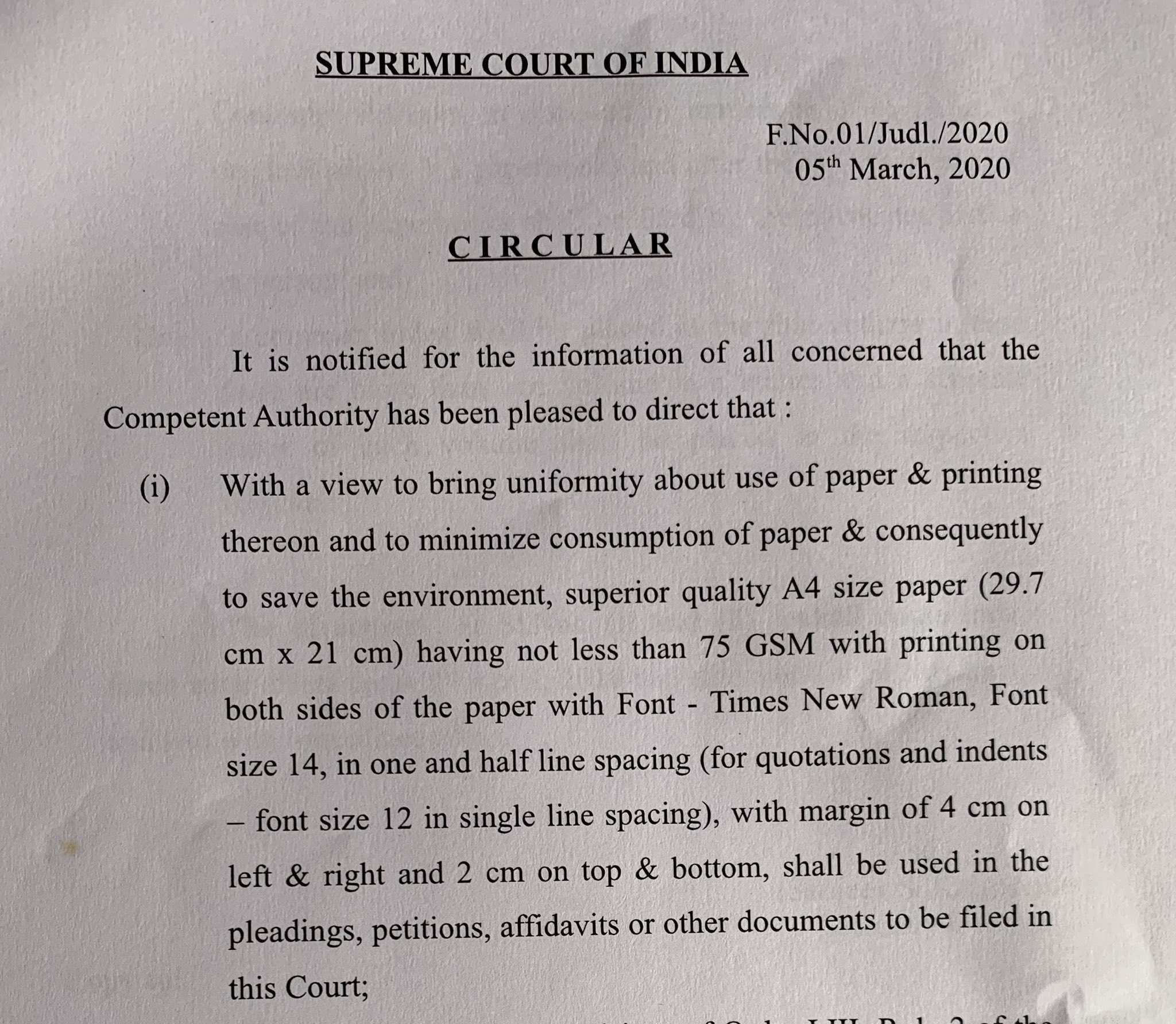
What Font Does The Supreme Court Use . Most typewriters produce monospaced type, and most computers also can do so using fonts with names such as “courier,” “courier new,” or. Supreme court has long required lawyers to use a font from the “century family” (e.g., century schoolbook). Always check with your jurisdiction for specific rules on accepted legal fonts. The supreme court legal brief format must use a century family font. The supreme court has switched to using the font calibri in its judgments sparking a “legal font war” among lawyers on twitter. For example, the us supreme court requires that century family fonts must be used in all briefs. Upon further inspection and reading through the comments, there doesn't seem to be a required typeface for supreme court of the united. Yup, the supreme court of arkansas bucked the tnr trend and decided to use garamond as the font for its opinions.
The supreme court has switched to using the font calibri in its judgments sparking a “legal font war” among lawyers on twitter. Upon further inspection and reading through the comments, there doesn't seem to be a required typeface for supreme court of the united. The supreme court legal brief format must use a century family font. Yup, the supreme court of arkansas bucked the tnr trend and decided to use garamond as the font for its opinions. For example, the us supreme court requires that century family fonts must be used in all briefs. Always check with your jurisdiction for specific rules on accepted legal fonts. Supreme court has long required lawyers to use a font from the “century family” (e.g., century schoolbook). Most typewriters produce monospaced type, and most computers also can do so using fonts with names such as “courier,” “courier new,” or.
What Font Does The Supreme Court Use Always check with your jurisdiction for specific rules on accepted legal fonts. Upon further inspection and reading through the comments, there doesn't seem to be a required typeface for supreme court of the united. Most typewriters produce monospaced type, and most computers also can do so using fonts with names such as “courier,” “courier new,” or. Supreme court has long required lawyers to use a font from the “century family” (e.g., century schoolbook). The supreme court legal brief format must use a century family font. Yup, the supreme court of arkansas bucked the tnr trend and decided to use garamond as the font for its opinions. Always check with your jurisdiction for specific rules on accepted legal fonts. The supreme court has switched to using the font calibri in its judgments sparking a “legal font war” among lawyers on twitter. For example, the us supreme court requires that century family fonts must be used in all briefs.
Main Power Of The Supreme Court The supreme court of the united states (scotus) is the highest What Font Does The Supreme Court Use Upon further inspection and reading through the comments, there doesn't seem to be a required typeface for supreme court of the united. Yup, the supreme court of arkansas bucked the tnr trend and decided to use garamond as the font for its opinions. The supreme court has switched to using the font calibri in its judgments sparking a “legal font. What Font Does The Supreme Court Use.
United States Supreme Court Logo LogoDix What Font Does The Supreme Court Use For example, the us supreme court requires that century family fonts must be used in all briefs. Always check with your jurisdiction for specific rules on accepted legal fonts. Most typewriters produce monospaced type, and most computers also can do so using fonts with names such as “courier,” “courier new,” or. The supreme court has switched to using the font. What Font Does The Supreme Court Use.
Supreme Court says 12yearold trans girl in West Virginia can continue on track team WHYY What Font Does The Supreme Court Use Upon further inspection and reading through the comments, there doesn't seem to be a required typeface for supreme court of the united. Most typewriters produce monospaced type, and most computers also can do so using fonts with names such as “courier,” “courier new,” or. Always check with your jurisdiction for specific rules on accepted legal fonts. Yup, the supreme court. What Font Does The Supreme Court Use.
The Supreme Court What Font Does The Supreme Court Use The supreme court legal brief format must use a century family font. Supreme court has long required lawyers to use a font from the “century family” (e.g., century schoolbook). The supreme court has switched to using the font calibri in its judgments sparking a “legal font war” among lawyers on twitter. Yup, the supreme court of arkansas bucked the tnr. What Font Does The Supreme Court Use.
‘Egregious’ UCC Officers denounce SCOTUS decision gutting affirmative action policies United What Font Does The Supreme Court Use The supreme court has switched to using the font calibri in its judgments sparking a “legal font war” among lawyers on twitter. Upon further inspection and reading through the comments, there doesn't seem to be a required typeface for supreme court of the united. Supreme court has long required lawyers to use a font from the “century family” (e.g., century. What Font Does The Supreme Court Use.
US Supreme Court The Supreme court of the United States. W… Flickr What Font Does The Supreme Court Use Upon further inspection and reading through the comments, there doesn't seem to be a required typeface for supreme court of the united. The supreme court legal brief format must use a century family font. Always check with your jurisdiction for specific rules on accepted legal fonts. Most typewriters produce monospaced type, and most computers also can do so using fonts. What Font Does The Supreme Court Use.
What font does US Supreme Court use? YouTube What Font Does The Supreme Court Use Most typewriters produce monospaced type, and most computers also can do so using fonts with names such as “courier,” “courier new,” or. The supreme court has switched to using the font calibri in its judgments sparking a “legal font war” among lawyers on twitter. Upon further inspection and reading through the comments, there doesn't seem to be a required typeface. What Font Does The Supreme Court Use.
Justices What Font Does The Supreme Court Use Always check with your jurisdiction for specific rules on accepted legal fonts. Supreme court has long required lawyers to use a font from the “century family” (e.g., century schoolbook). For example, the us supreme court requires that century family fonts must be used in all briefs. Upon further inspection and reading through the comments, there doesn't seem to be a. What Font Does The Supreme Court Use.